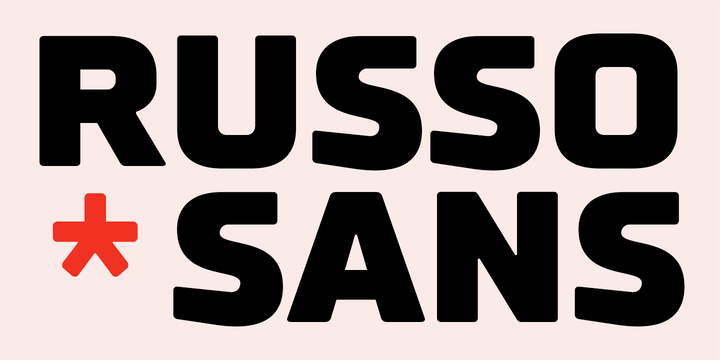
TT Russo Sans
Russo Sans is a modern extension of the legendary free font Russo. Now it is a modern interpretation of an old font. We added in this fontfamily new typefaces and support for many codepages and languages.
The fonts are very convenient to use in web, mobile apps and in desktop computers. The font family Russo Sans contains many languages and alphabets, as well as compatible with other TypeType fonts.
interfaces, infographics, graphic design, logotypes, TV design, packaging, design of interiors and exhibitions, presentations and events, restaurants and cafes, educational literature